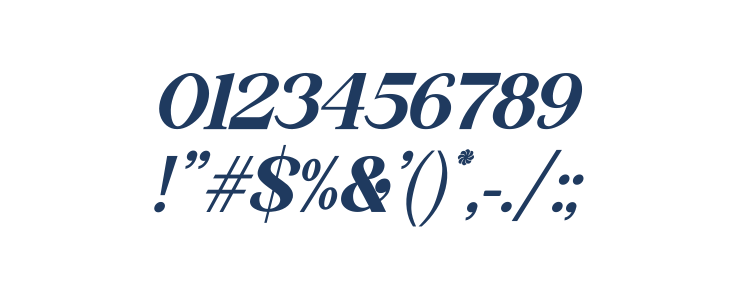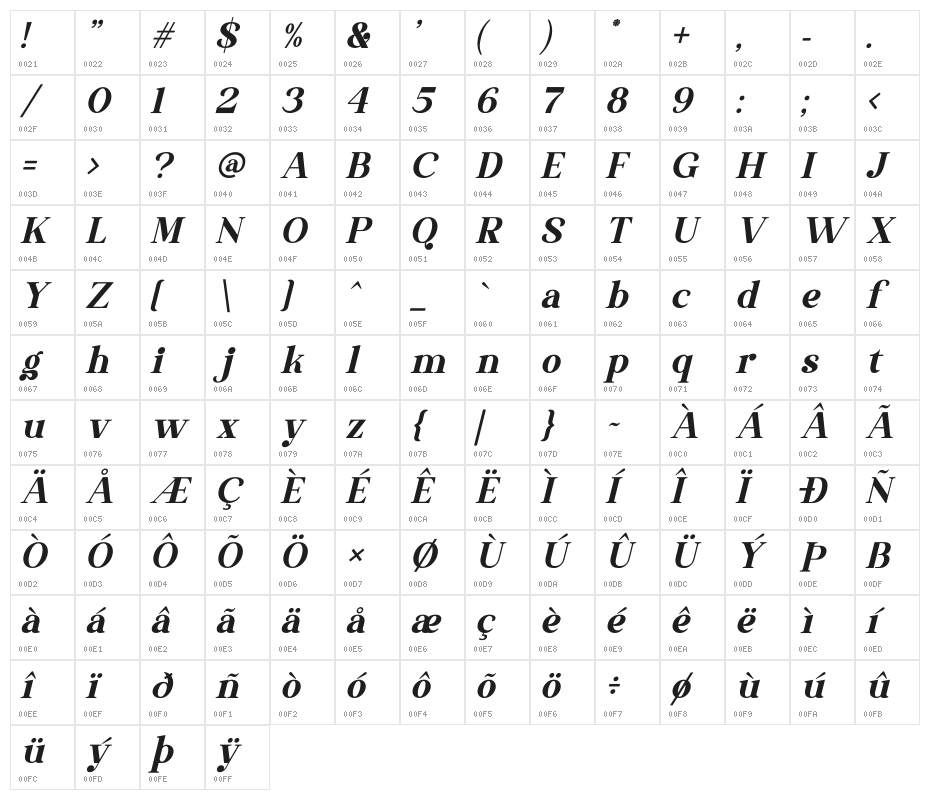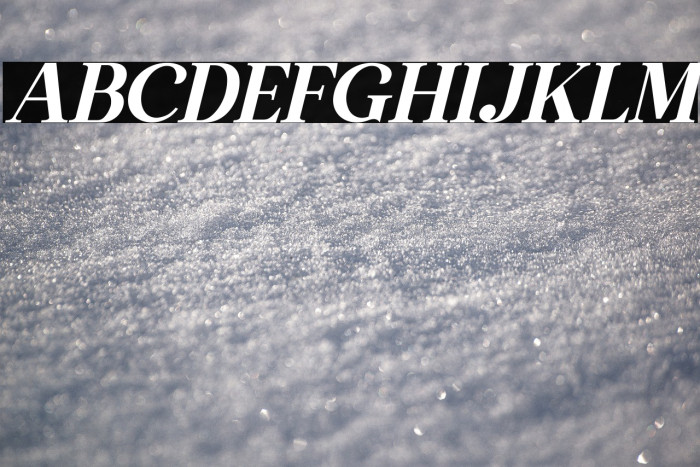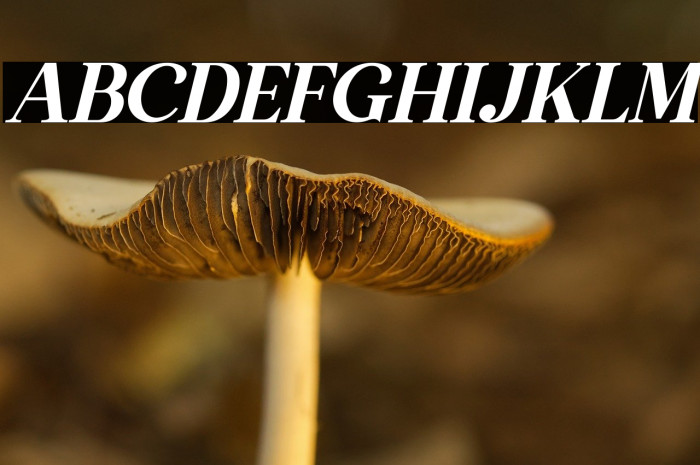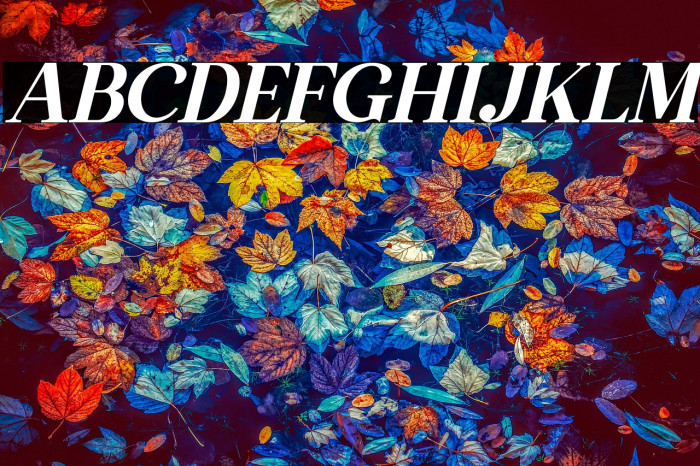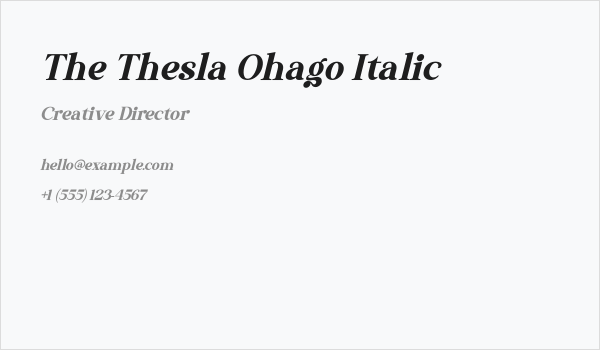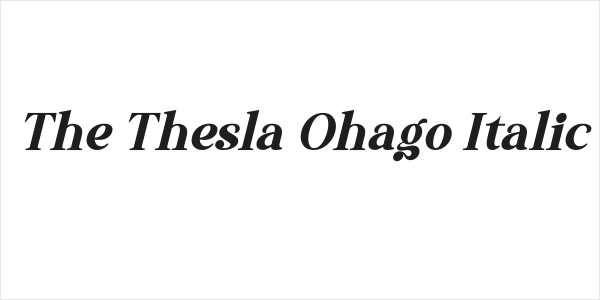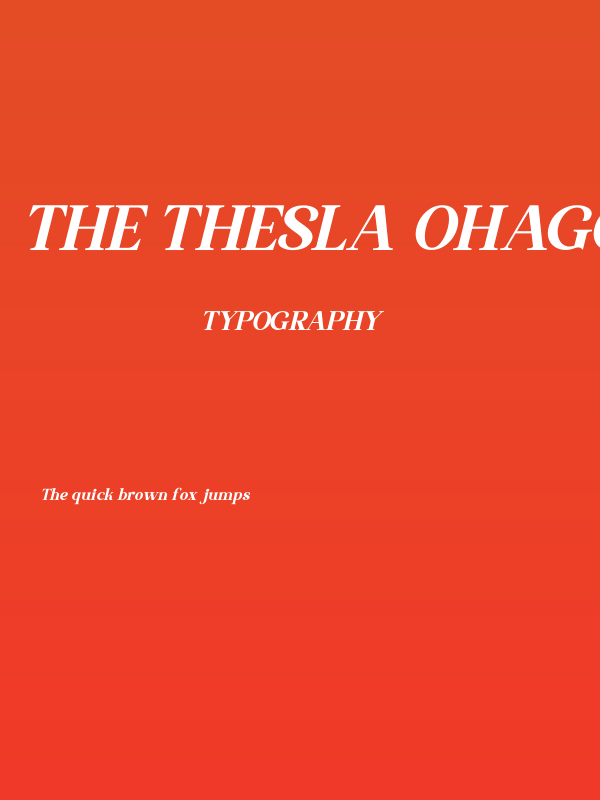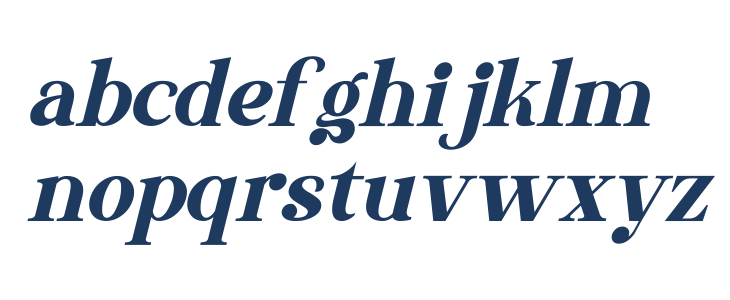
The Thesla Ohago Italic Font
The Thesla Ohago Italic Description
This font features a classic serif style with a distinct italic slant, giving it an elegant and sophisticated appearance. The uppercase letters are bold and commanding, while the lowercase letters maintain a graceful flow. The numerals are well-proportioned, complementing the overall design. Special characters are included, enhancing its versatility. The font's high contrast between thick and thin strokes adds to its refined aesthetic, making it suitable for formal and professional applications.
| Use Case | Headlines, Logos, Editorial design |
| Proposed Projects | Ideal for use in luxury branding, editorial design, formal invitations, and high-end product packaging. |